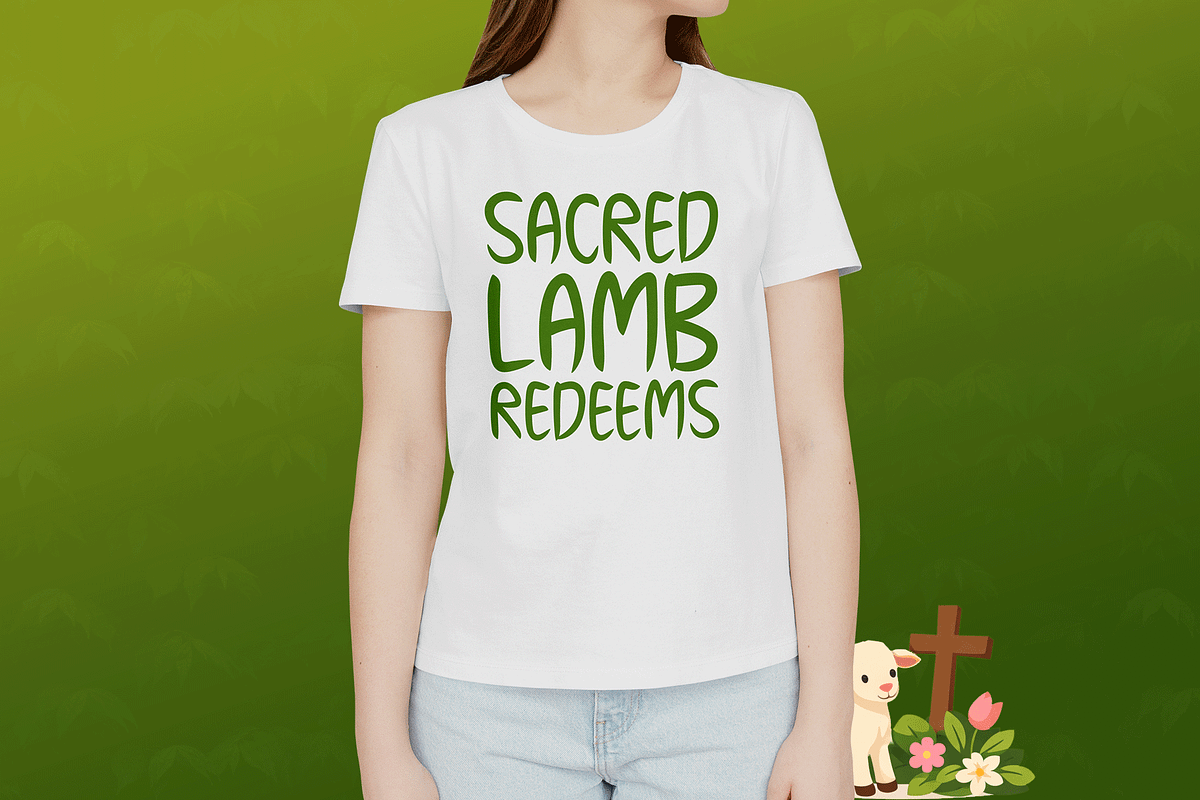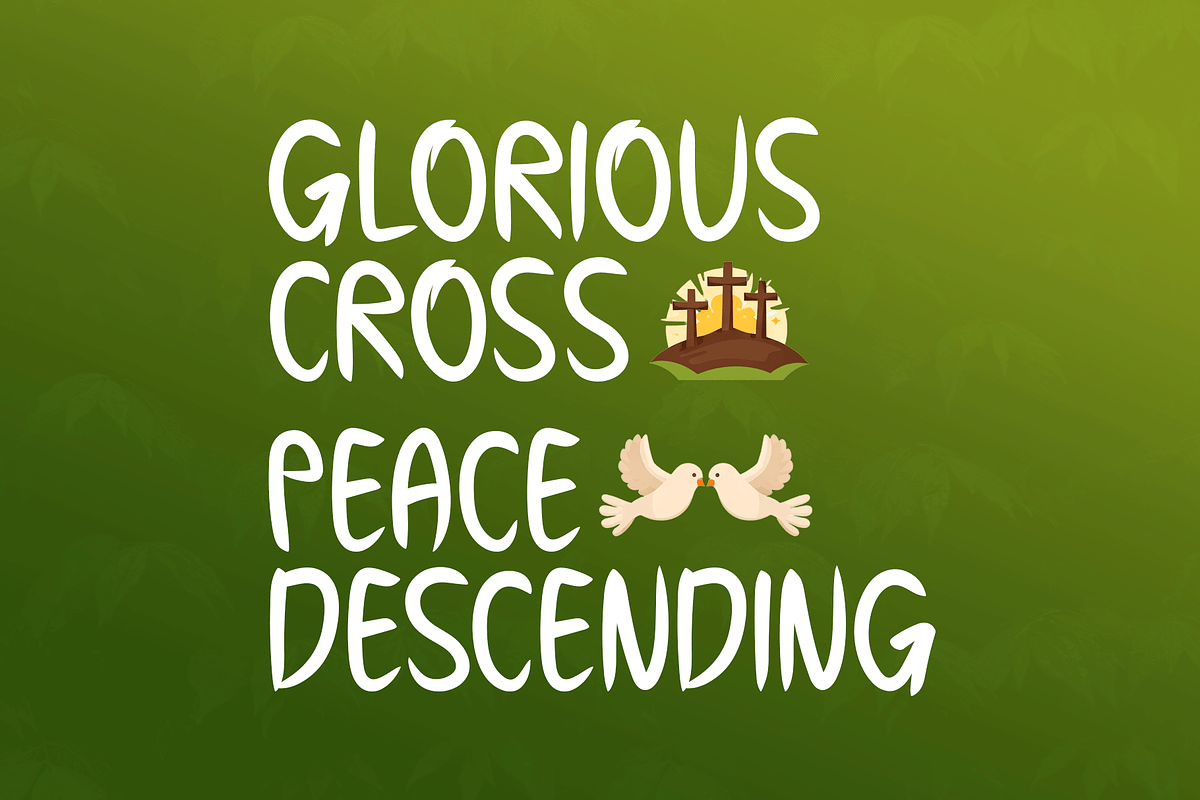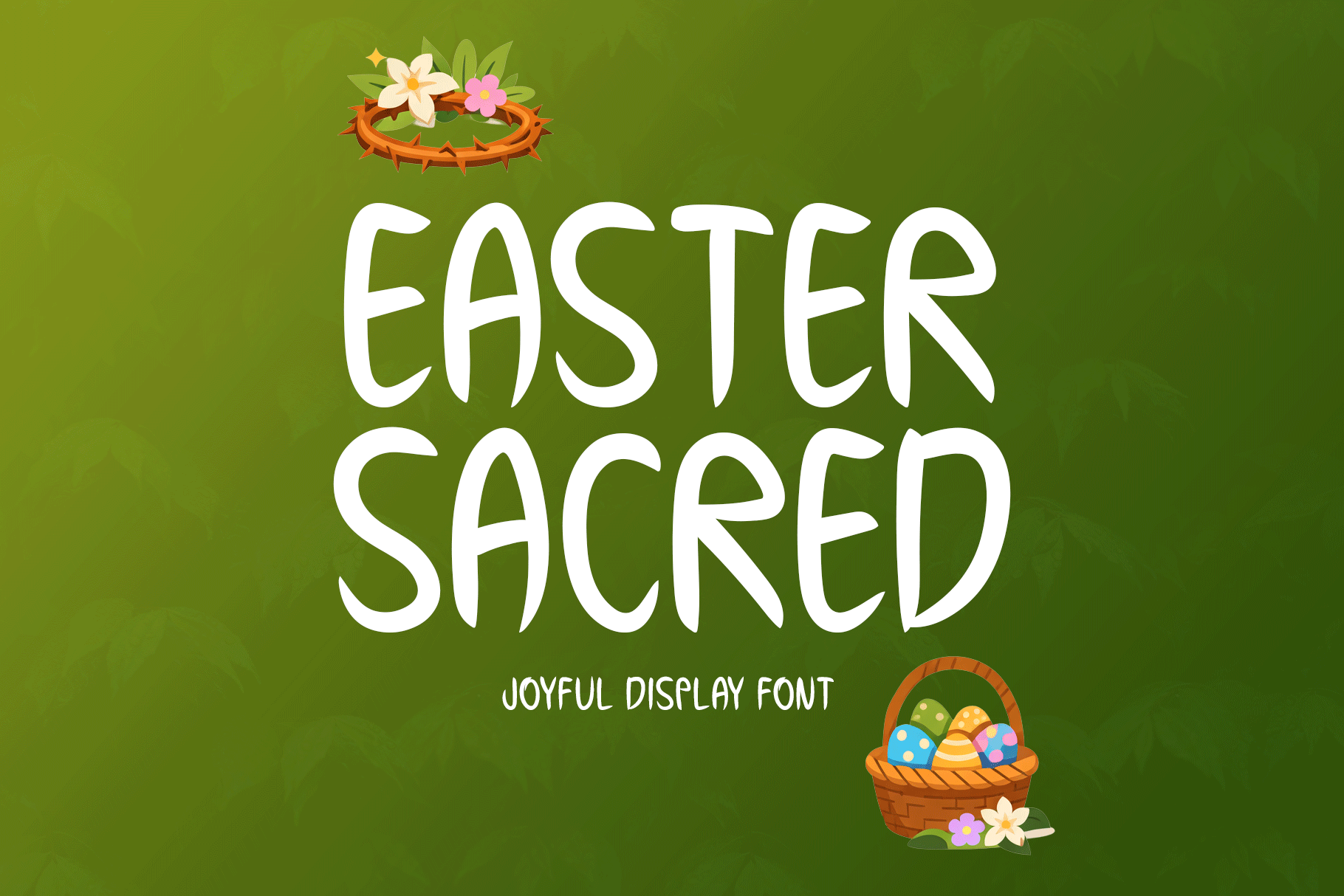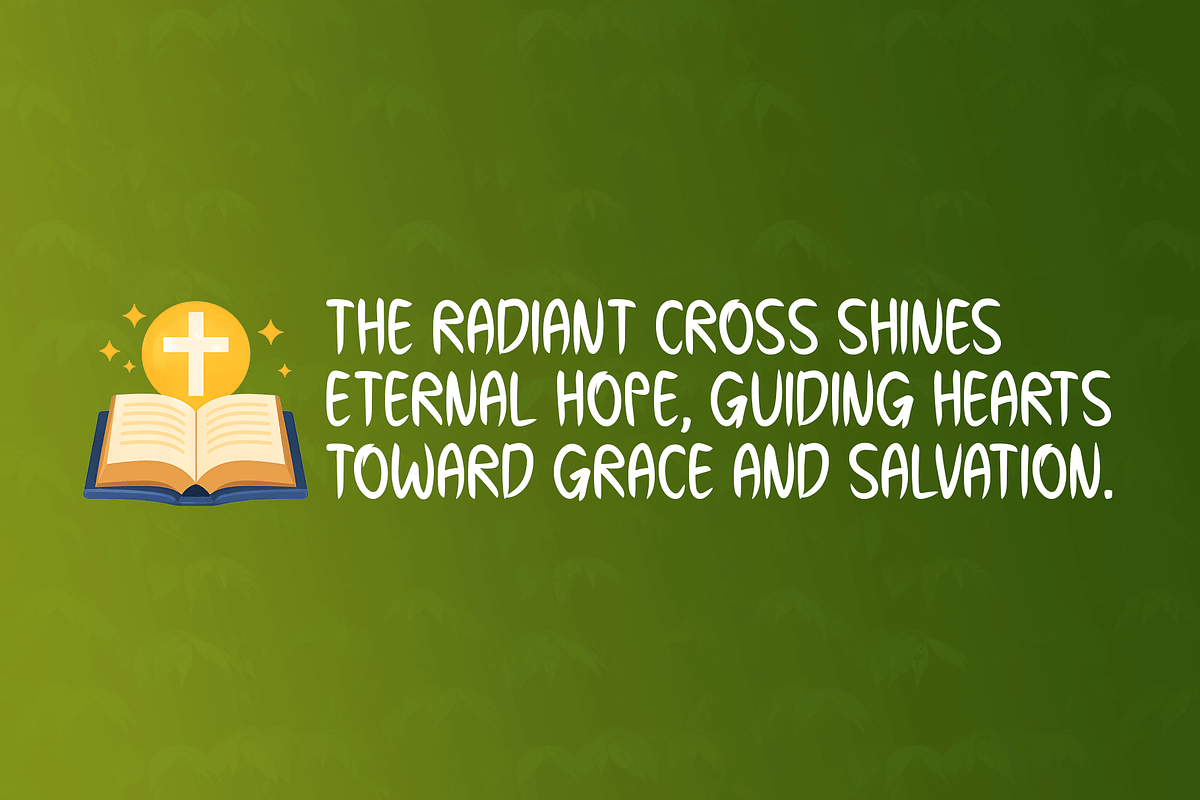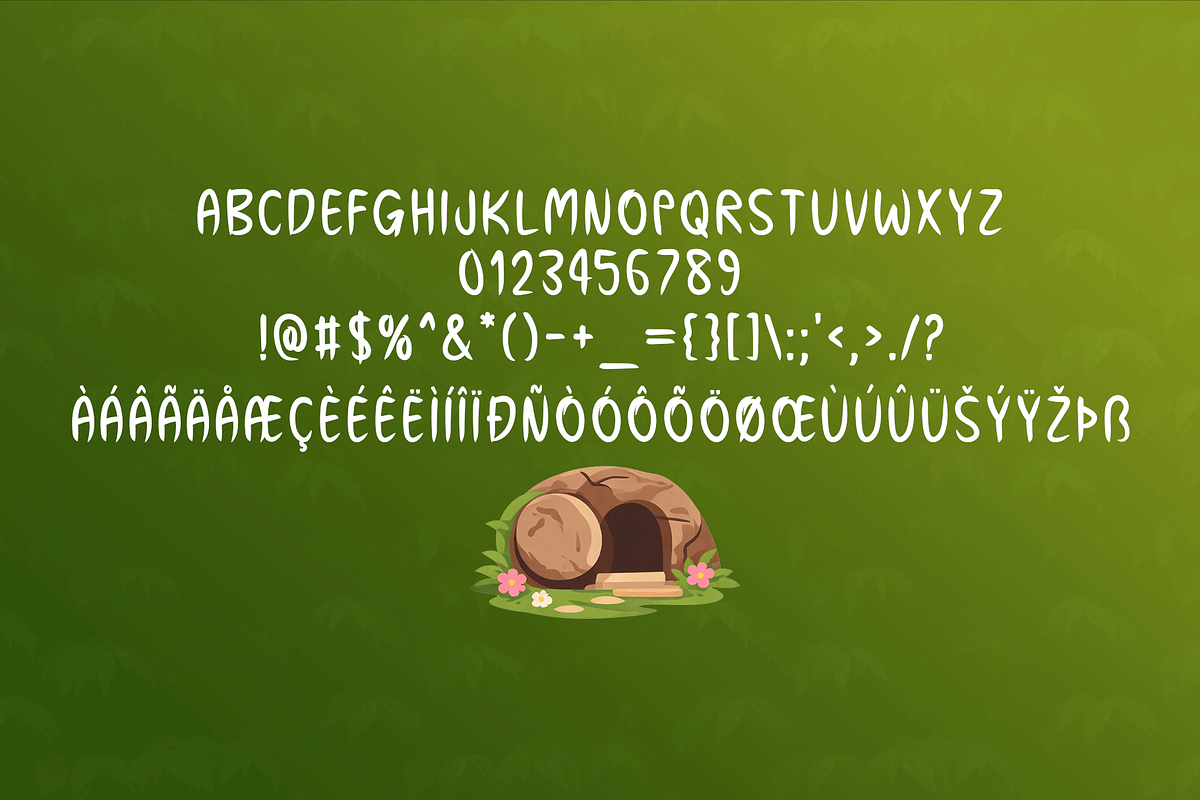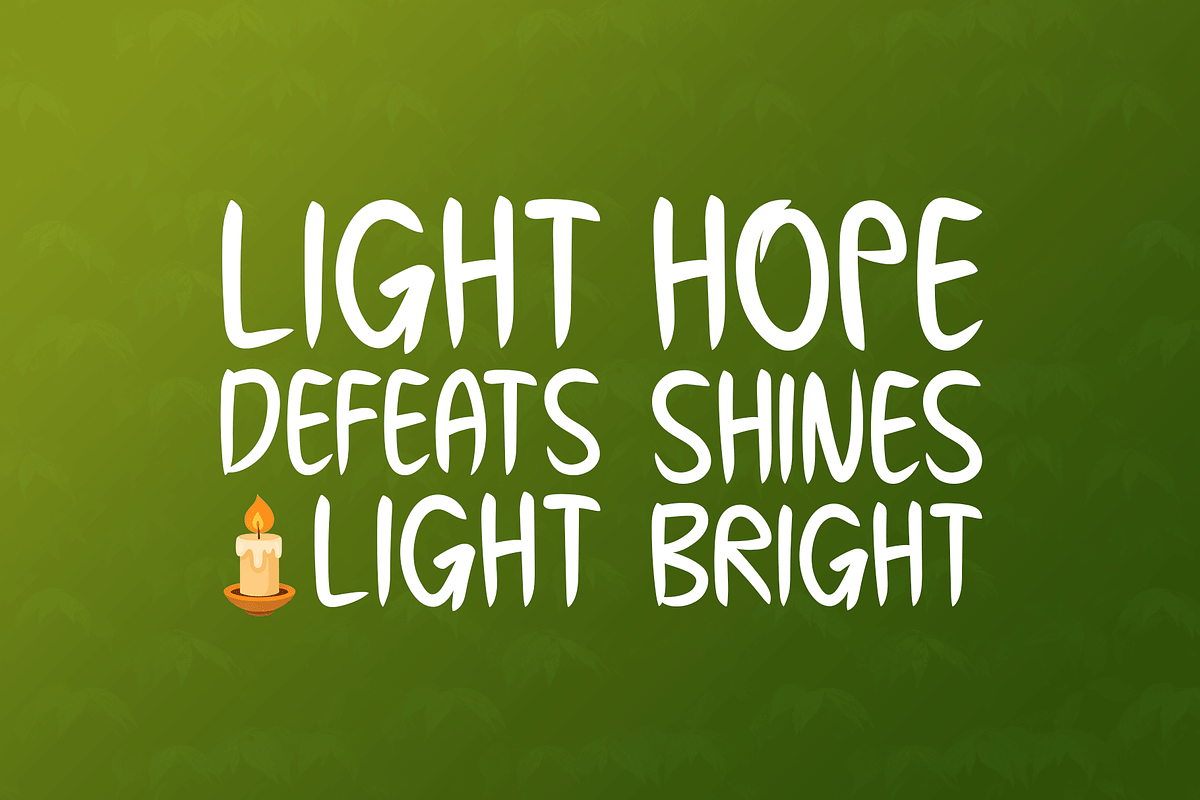
Easter Sacred Typeface
Introducing Easter Sacred!
Easter Sacred is a joyful handwritten display font inspired by faith, peace, and the spirit of Easter. Its soft brush strokes and playful shapes create a warm and friendly visual style that feels both uplifting and inviting. Perfect for Easter designs, Christian quotes, greeting cards, and inspirational typography, this font adds a meaningful touch to creative projects. Easter Sacred brings a beautiful sense of hope, celebration, and spiritual charm to every design.
Includes a range of multilingual support